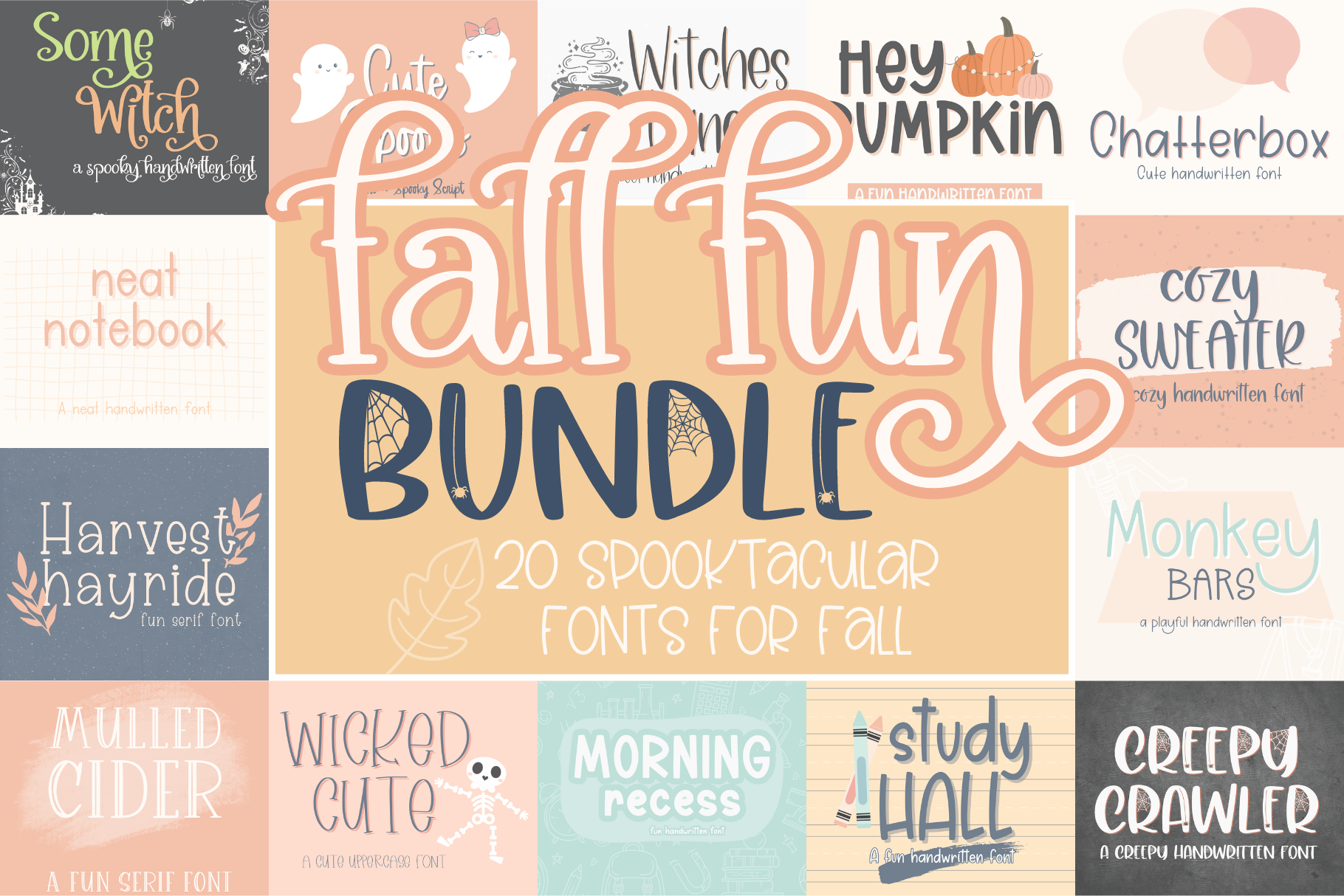
Fall Handwritten Font Bundle
Introducing our spooktacular Fall Handwritten Font Bundle, a delightful collection of 20 cute handwritten fonts for Cricut and more! This comprehensive bundle includes an array of stunning cursive and script fonts, specifically designed for various creative projects. Whether you're crafting personalized items or designing digital artwork, our font bundle offers the perfect blend of style and versatility. Our handwriting fonts are compatible with Cricut SVGs, Goodnotes, Procreate, and many other programs. Elevate your creative endeavors today with our exceptional cute Halloween font bundle and unlock endless possibilities for your projects!
Fonts included are: _____ Chatterbox Cozy Sweater Creepy Crawler Cute Spooks Harvest Hayride Hey Pumpkin Letterman Jacket Outline Letterman Jacket Script Lovely Haunting Magic Cauldron Monkey Bars Morning Recess Mulled Cider Neat Notebook Some Witch Study Hall Under Your Spell Wicked Cute Witches Lane